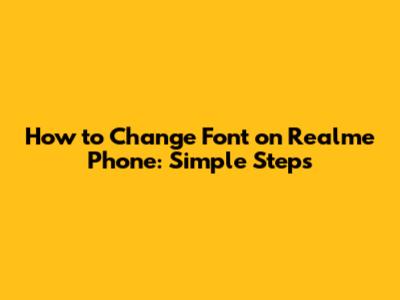
- Personalization: Changing the font allows you to express your style. Whether you prefer something sleek and modern or fun and quirky, there's a font out there for you.
- Readability: Some fonts are just easier to read than others. If you're struggling with the default font, switching to something clearer can make a big difference.
- Aesthetic Appeal: Let's face it, a new font can make your phone look cooler! It's a simple way to refresh the user interface and keep things interesting.
- Accessibility: For users with visual impairments, adjusting the font size and style can significantly improve accessibility.
- Open Settings: First, find the Settings app on your Realme phone. It usually looks like a gear icon.
- Go to Display & Brightness: Scroll down until you see “Display & Brightness” and tap on it. This section controls everything related to your phone's screen.
- Select Font: Look for the “Font” option. It might also be labeled as “Font & Display Size” on some models. Tap on it to proceed.
- Choose Your Font: You’ll see a list of available fonts. Realme usually offers a few pre-installed fonts to choose from. Simply tap on the font you like to preview it.
- Adjust Font Size (Optional): While you’re in the Font settings, you can also adjust the font size to make it larger or smaller. This is great for improving readability.
- Apply the Changes: Once you’ve chosen your font and adjusted the size, tap the “Apply” button. Your phone will apply the new font across the system.
- Open the Theme Store: Look for the Theme Store app on your Realme phone. It usually has a colorful icon.
- Navigate to Fonts: In the Theme Store, you’ll find different categories like Themes, Wallpapers, and Fonts. Tap on the “Fonts” category.
- Browse Available Fonts: Scroll through the list of available fonts. You can filter by popularity, new arrivals, or price (free or paid).
- Preview Fonts: Tap on a font to preview how it will look on your phone. The Theme Store usually shows examples of the font in different apps and menus.
- Download and Apply: If you like a font, tap the “Download” button (if it’s free) or the “Buy” button (if it’s paid). Once the font is downloaded, tap the “Apply” button to set it as your system font.
- Security Risks: Third-party apps can sometimes contain malware or compromise your privacy. Only download apps from trusted sources like the Google Play Store.
- Compatibility Issues: Some apps might not be fully compatible with your Realme phone, leading to crashes or other problems.
- System Instability: In rare cases, third-party apps can mess with your phone’s system settings and cause instability.
- HiFont: This app offers a wide variety of fonts, but it requires root access on some devices.
- FontFix: Another popular app with a large selection of fonts. Be sure to read the permissions carefully before installing.
- Readability: Prioritize fonts that are easy to read, especially if you spend a lot of time reading on your phone. Avoid overly stylized or decorative fonts that can strain your eyes.
- Personal Style: Choose a font that reflects your personality and style. Do you prefer something modern and minimalist, or something more playful and whimsical?
- Font Size: Adjust the font size to ensure comfortable viewing. Larger fonts can improve readability, especially for users with visual impairments.
- Consistency: Stick to one or two fonts throughout your phone's interface to maintain a consistent and cohesive look.
- Test and Preview: Before applying a font, always test and preview it to see how it looks in different apps and menus.
Hey guys! Want to give your Realme phone a fresh new look? One of the easiest ways to do that is by changing the font! It’s super simple and can totally transform your phone's vibe. This guide will walk you through the steps on how to change font on Realme phone, making it uniquely yours.
Why Change the Font on Your Realme Phone?
Before diving into the how-to, let's talk about why you might want to change the font in the first place. Customization is key! We all love making our devices feel more personal, and fonts play a big role in that. Here are a few reasons:
Changing the font on your Realme phone is more than just a cosmetic tweak; it's about making your device work better for you. Whether you're aiming for better readability, a fresh aesthetic, or enhanced personalization, the ability to customize your font is a valuable feature. So, let's get started and explore how to change font on Realme phone!
Method 1: Using Realme's Built-In Font Settings
Realme phones come with a built-in feature that lets you change fonts without needing to download any extra apps. It's the easiest and safest way to customize your font. Here’s how to do it:
This method is super straightforward and perfect for those who want a quick and easy way to change their font. Remember that the number of pre-installed fonts might be limited, but it’s a great starting point. This is the basic how to change font on Realme phone.